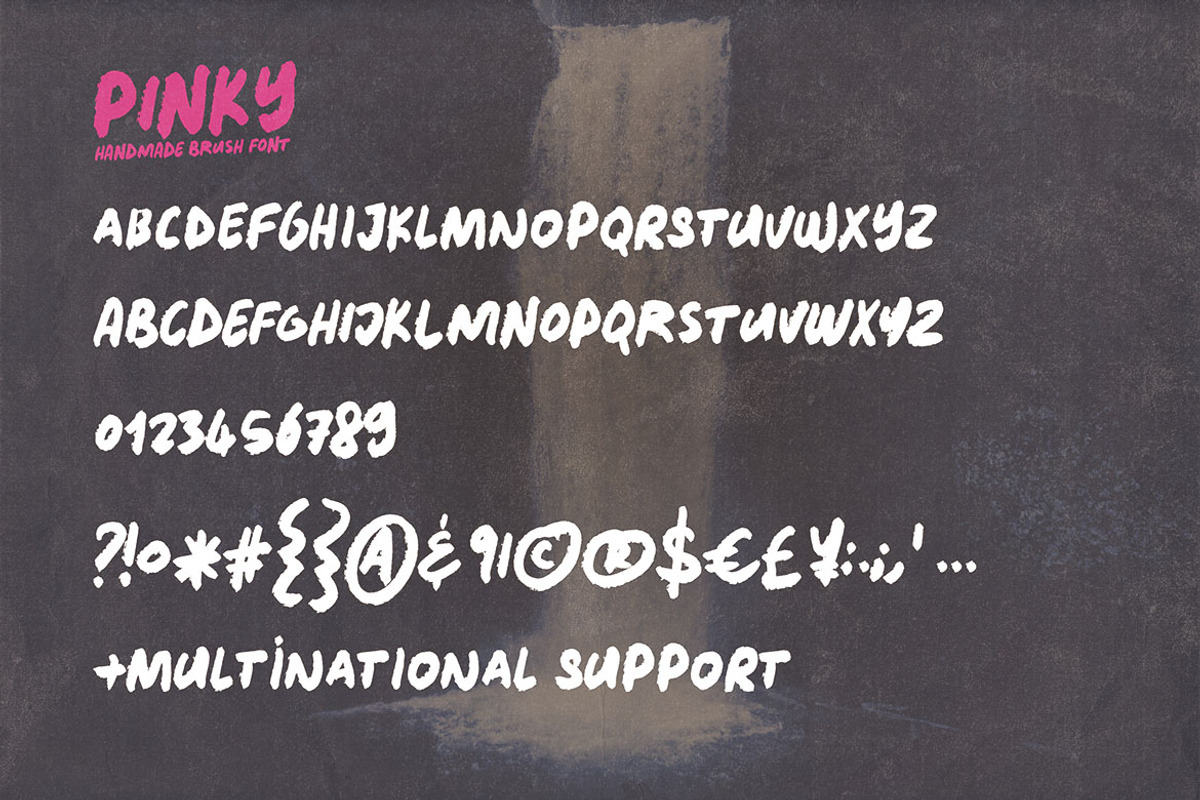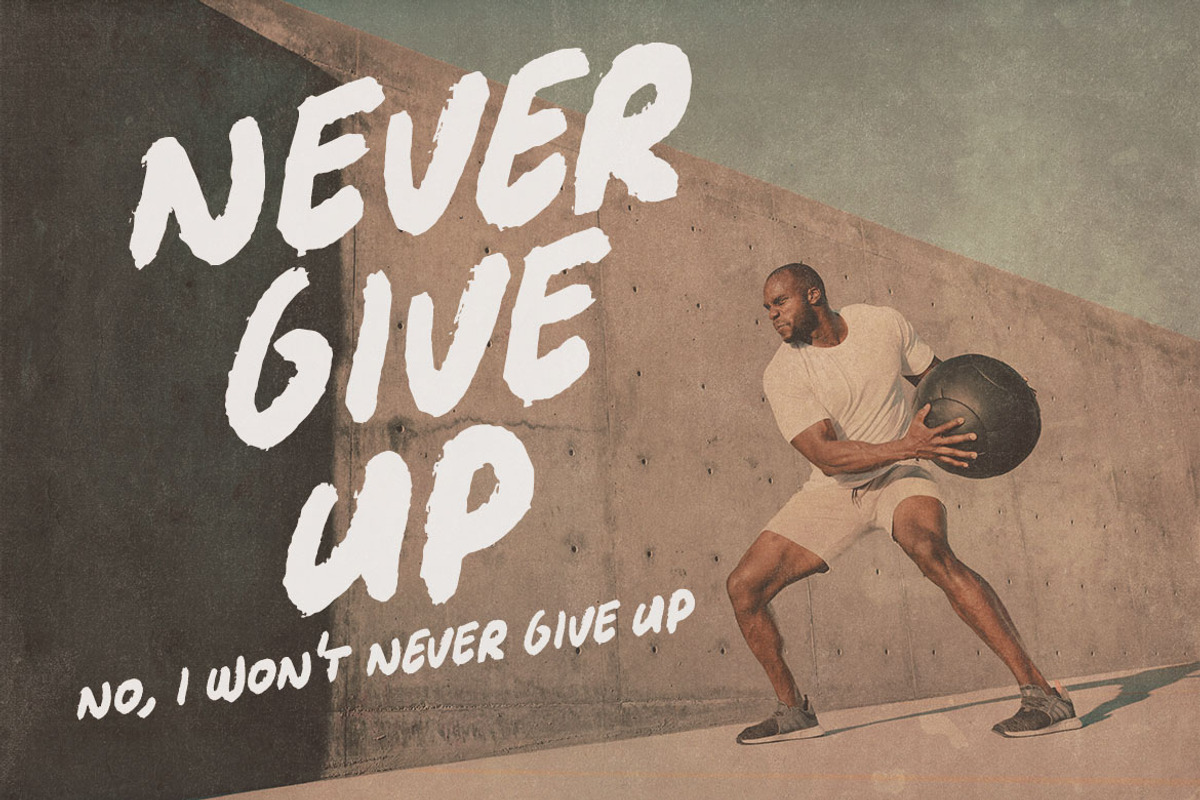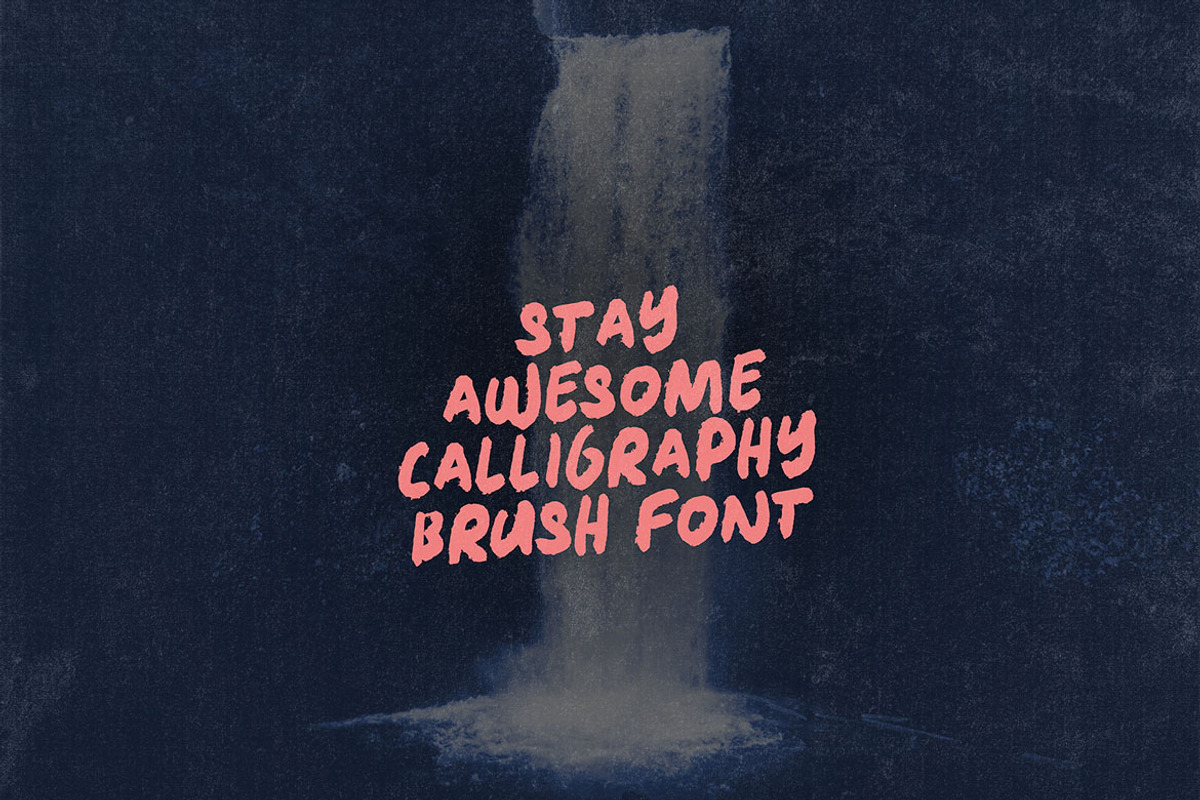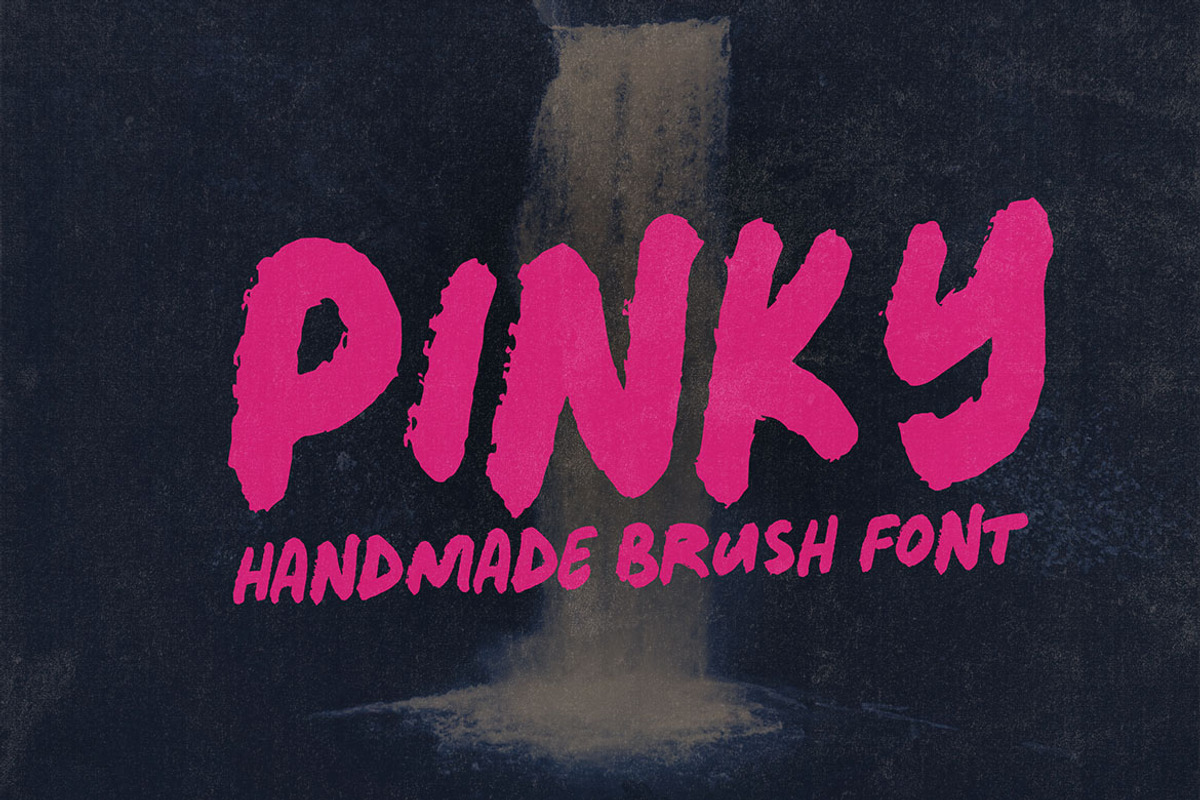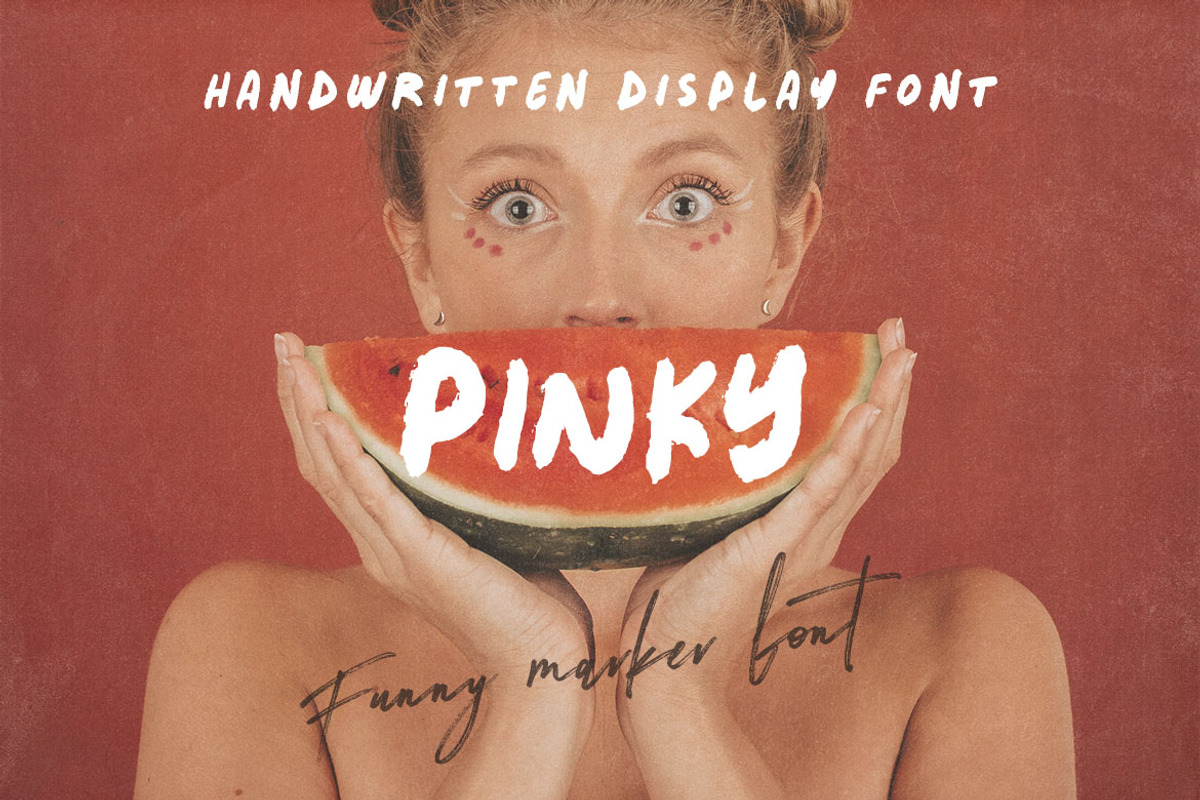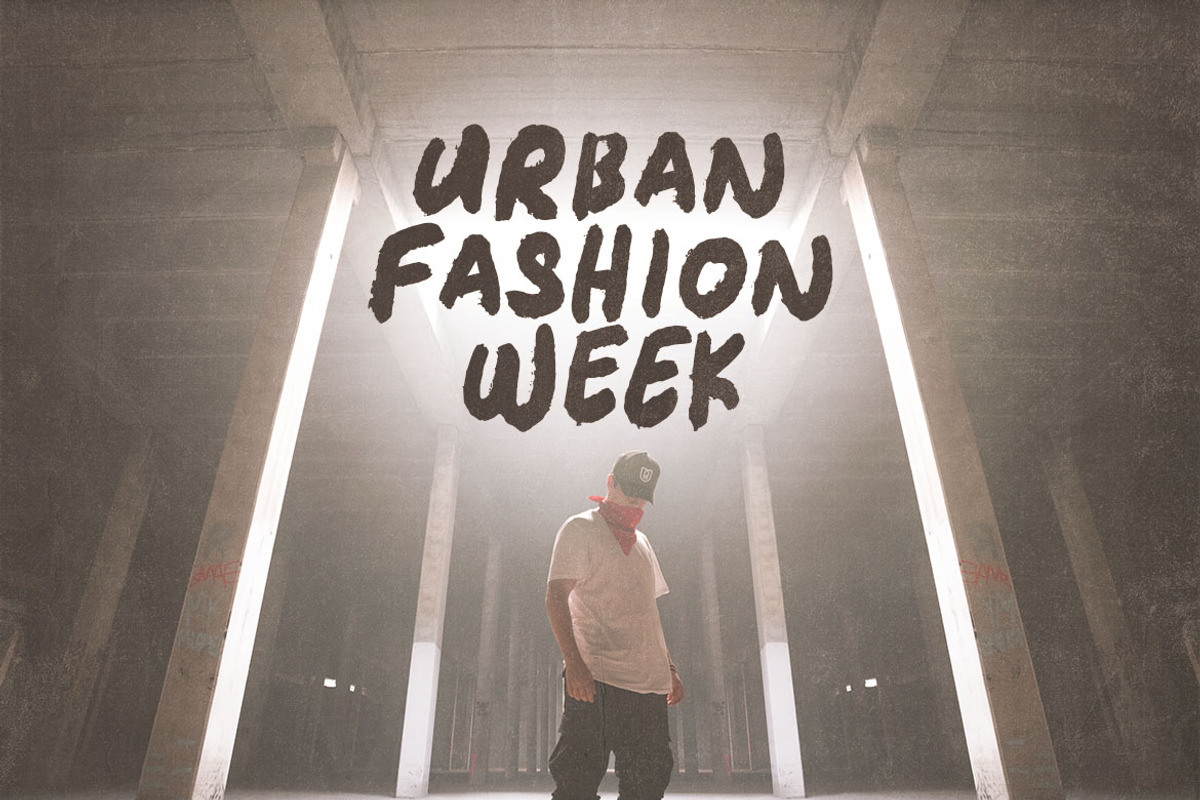
Pinky - Bold Handwritten Font
Marker, handwritten, bold & grunge style sans display font for your new projects. Great for grunge or artistic projects!
- multilanguage support